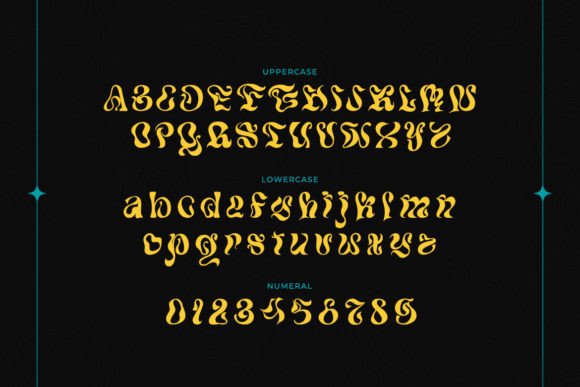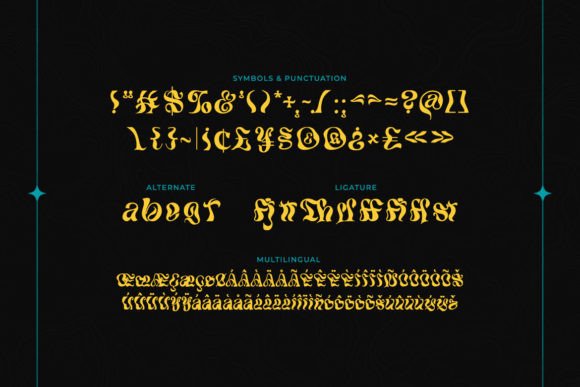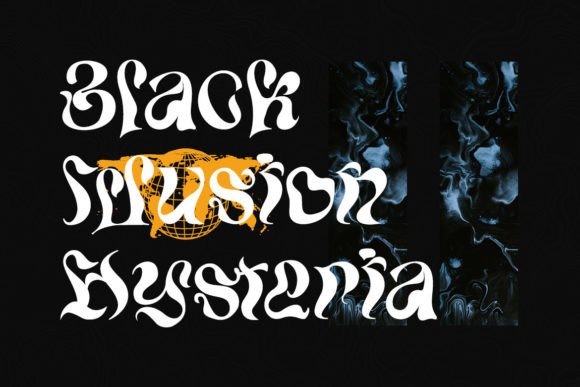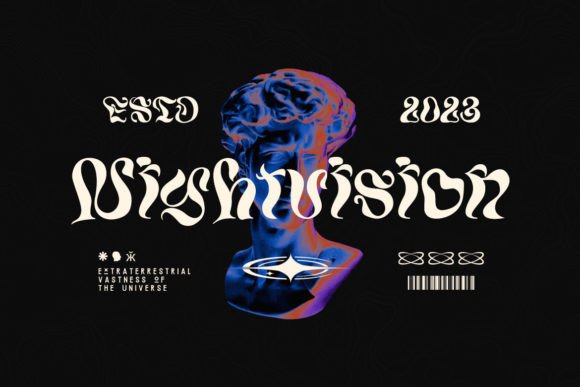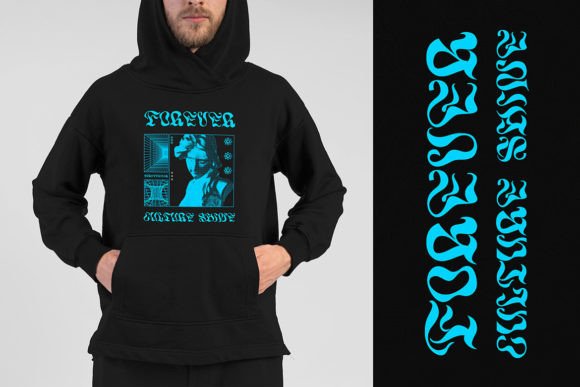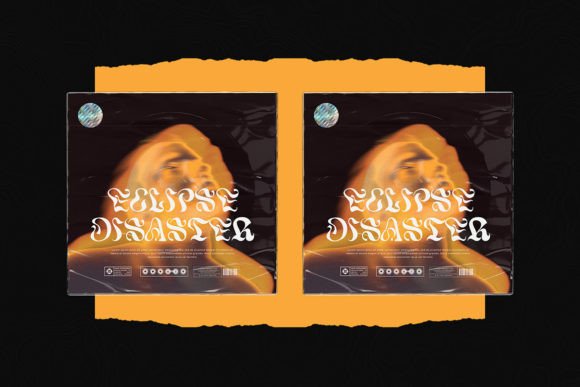
Introduction to Meander Font
Meander is a unique liquid display font.
Its casual charm makes it appear wonderful down-to-earth, readable, and versatile This font will look outstanding in any context, whether itโs being used on busy backgrounds or as a standalone headline especially monochrome on design.
Key Features of Meander Font